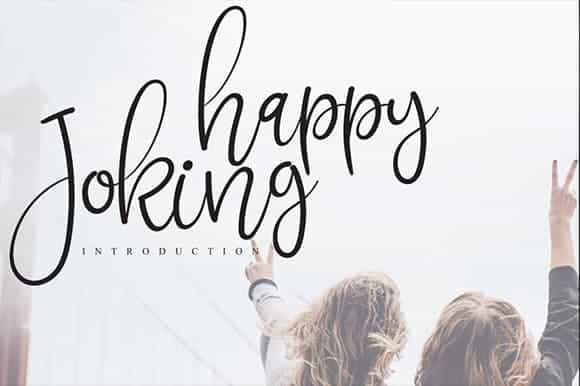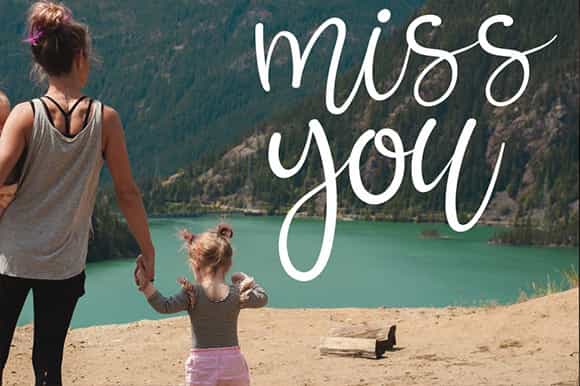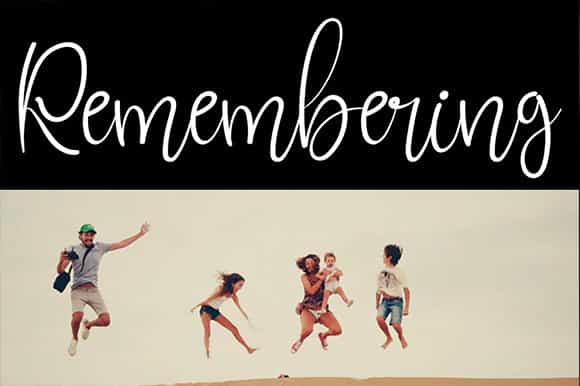
Inject some fun into your projects with the Joking Happy Font. Its latest style letters are perfect for display, on walls, wedding invitations, social media logos, ads, packaging, product designs, labels, photography, watermarks, invitations. Any project that could use some handwriting.